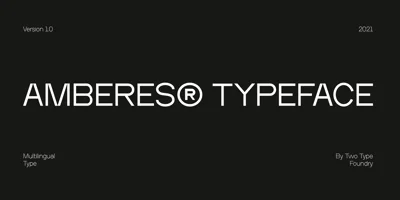
Amberes Grotesk Font
Amberes Grotesk Font is perfect for architectural firms, minimalist branding, contemporary art galleries, corporate communications, editorial design, modern websites, industrial design projects, urban planning materials, and any project requiring clean, geometric typography with European sophistication.
What makes Amberes Grotesk Font exciting is its refined interpretation of classic grotesk principles with contemporary Belgian design sensibility. This exceptional typeface combines the structural integrity of traditional sans-serif fonts with subtle modern refinements that create exceptional clarity and visual impact. The font's precise letterforms and balanced proportions reflect the architectural heritage of Antwerp while delivering cutting-edge functionality for today's design challenges.
The Amberes Grotesk Font family includes comprehensive weight options from extra light to black, featuring complete uppercase and lowercase alphabets, extensive numerals, punctuation marks, multilingual character support, and advanced OpenType features. Each weight maintains the font's distinctive grotesk character while providing optimal performance across various media and applications.
Whether you're developing corporate identity systems, creating editorial layouts, or designing contemporary architectural presentations, Amberes Grotesk Font delivers unmatched clarity and European design excellence. This distinguished typeface transforms ordinary text into sophisticated visual communications that convey professionalism and modern aesthetic values. The font's versatility and comprehensive character set make it ideal for complex international projects and multi-platform applications. Download this remarkable font today and bring Belgian design sophistication to your creative endeavors with timeless grotesk elegance.